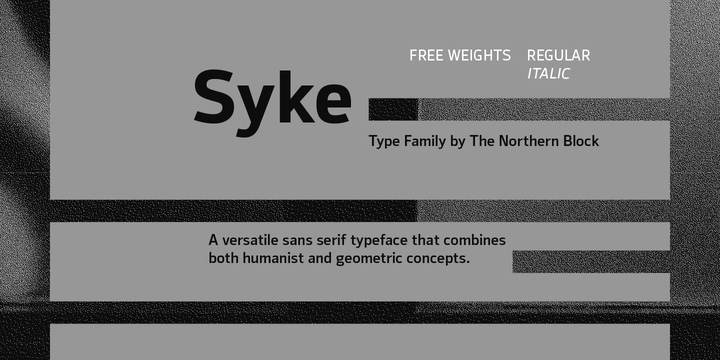
Syke Font
Syke Font is perfect for psychology practice branding, mental health awareness campaigns, mindfulness app interfaces, wellness center signage, therapeutic service logos, neuroscience publication layouts, mental wellness poster design, counseling practice materials, meditation retreat branding, psychological research presentations, mind-body connection graphics, and consciousness-focused storytelling.
Syke Font is exciting because it embodies the intricate beauty and profound depth of human consciousness with thoughtfully crafted letterforms that seem to reflect the complex neural pathways of the mind, making it ideal for projects that explore the fascinating landscape of psychology, mental wellness, and the infinite potential of human understanding.
The Syke Font family includes mindful variations: Regular, Bold, Light, Thin, Medium, and Italic styles, providing designers with a complete psychological typography system to create thoughtful compositions that honor the complexity and beauty of mental health awareness and psychological exploration.
The font's carefully designed letterforms reflect the balanced precision and empathetic understanding that define excellent psychological practice, with clean lines and harmonious proportions that suggest both scientific rigor and human warmth. Each character demonstrates the perfect balance between analytical clarity and emotional intelligence.
Syke Font excels in creating trustworthy brand experiences for businesses in mental health, wellness, and psychological services sectors. Its professional yet approachable appearance communicates expertise and compassion, making it perfect for therapy practices, wellness centers, and mental health organizations seeking to establish credibility while remaining accessible.
Professional designers appreciate how Syke Font maintains its psychological character while providing exceptional functionality across diverse wellness applications. The comprehensive style range ensures optimal performance from intimate therapy office materials to large-scale mental health awareness campaigns, maintaining consistent professionalism and empathetic appeal.
This remarkable typeface brings instant credibility to mental wellness ventures and psychology-focused organizations. From private practice therapists to mental health nonprofits, Syke Font creates lasting impressions that communicate understanding, expertise, and the profound importance of mental health in human flourishing.